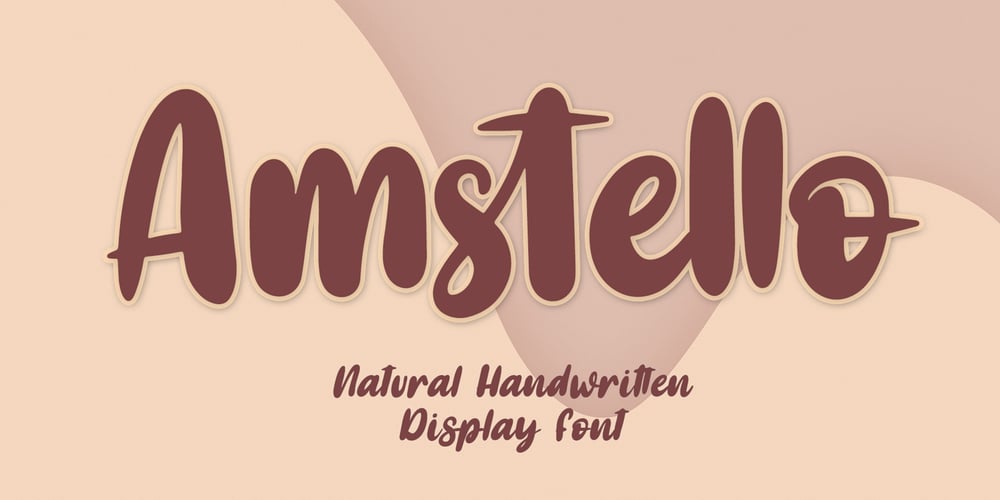
Amstello Font Family was designed by Ahmad Afandi and published by Letterafandi Studio. Amstello contains 2 styles and family package options. Amstello is a cute and fun handwritten display font. This original look will appeal to a wide range of crafty ideas, from letterheads and titles to stationery.